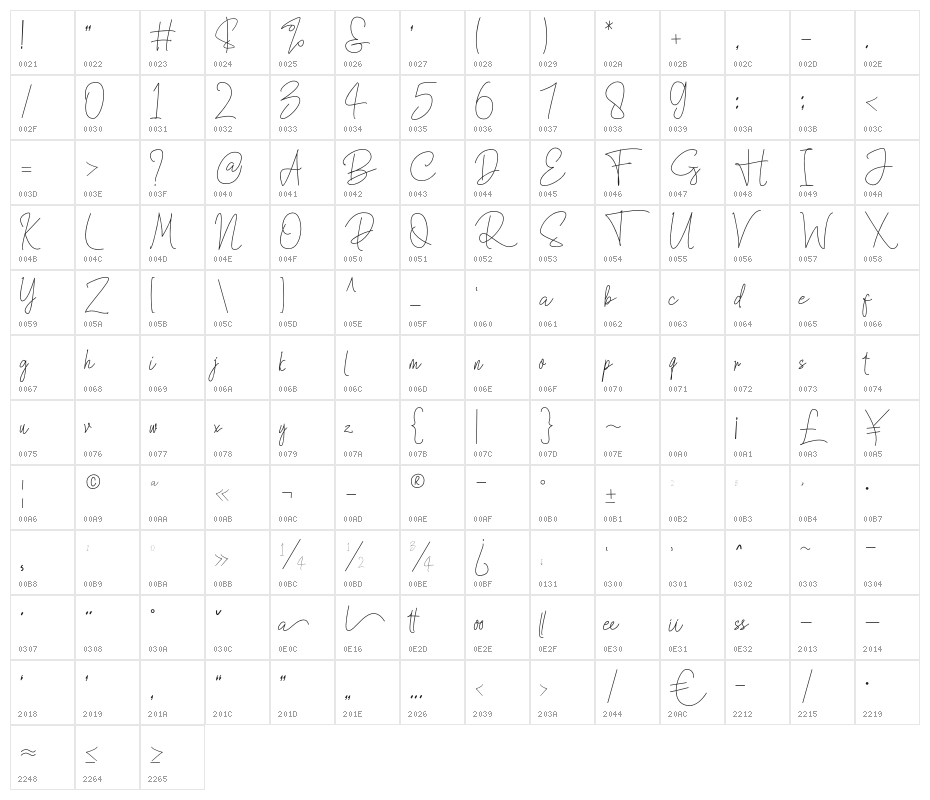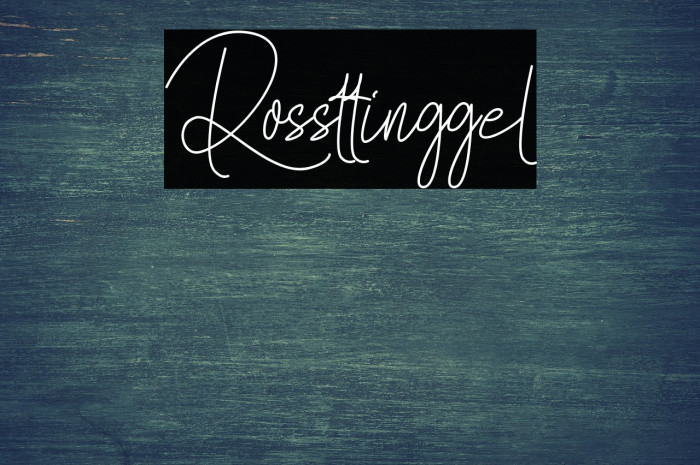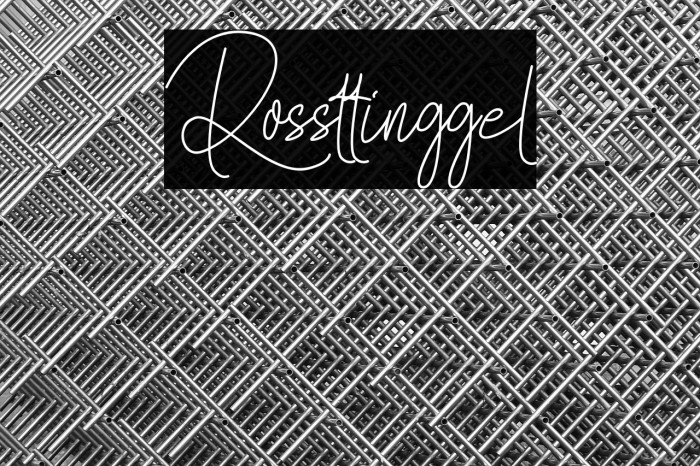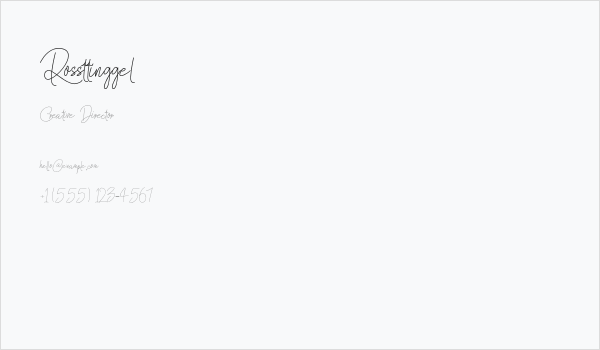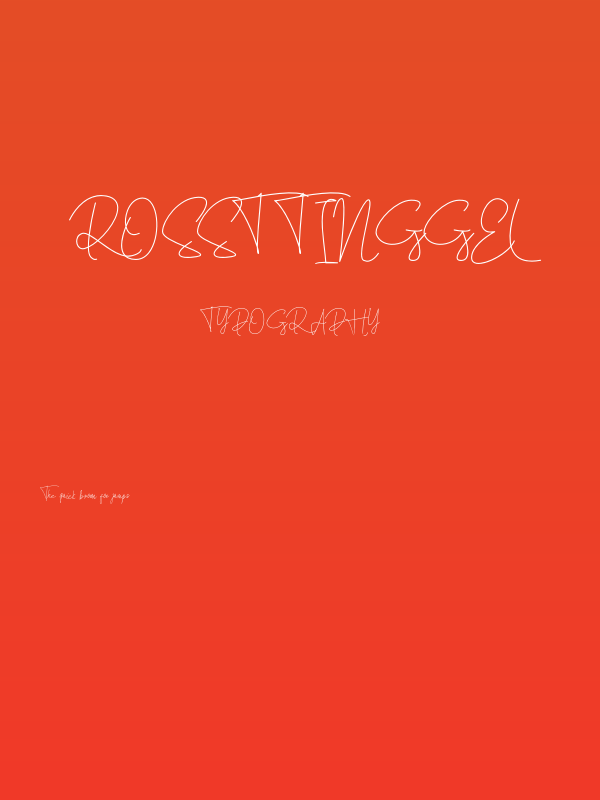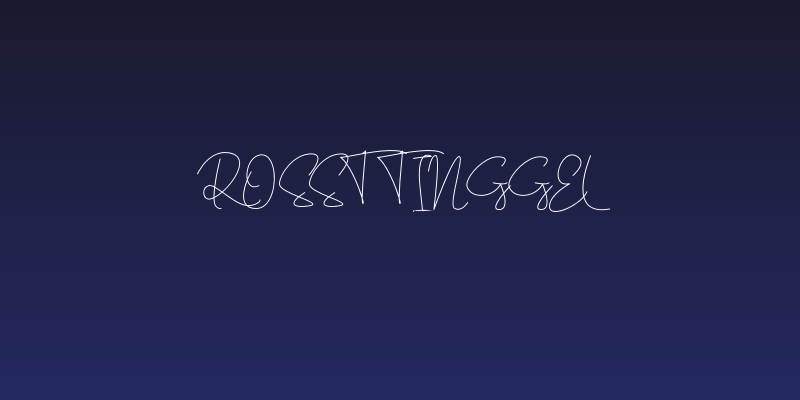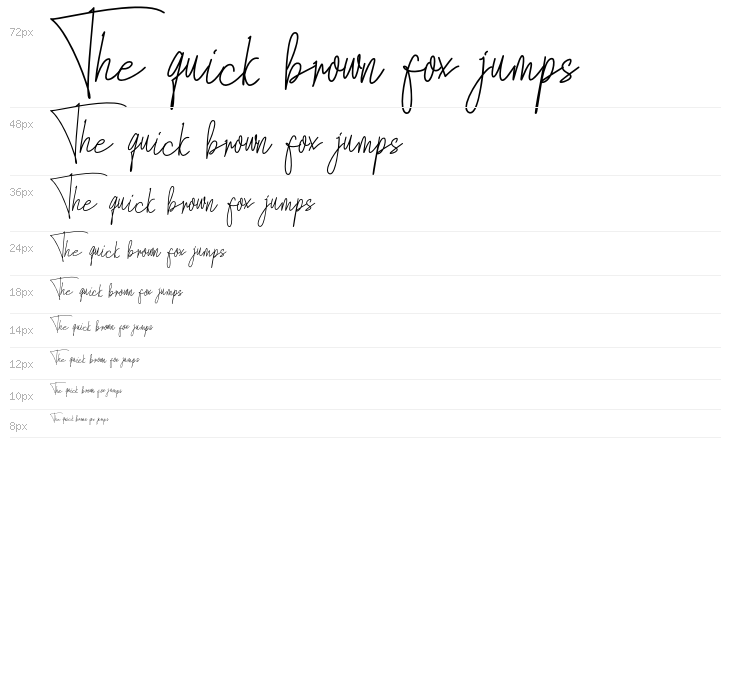
Rossttinggel Font
Rossttinggel Description
This font features a distinctive handwritten style with elegant, flowing lines that give it a personal and artistic touch. The uppercase letters are tall and slender, with a slight slant that adds a dynamic feel. The lowercase letters maintain a consistent style, with smooth curves and a natural, fluid motion. Numbers are uniquely styled, maintaining the handwritten aesthetic with a playful twist. Special characters are creatively integrated, enhancing the font's overall artistic appeal. This font's design is both modern and expressive, making it suitable for creative projects.
Overall StyleModern, Artistic
Use CaseLogos, Invitations, Artistic projects
Proposed ProjectsIdeal for wedding invitations, greeting cards, personal branding, and artistic projects.